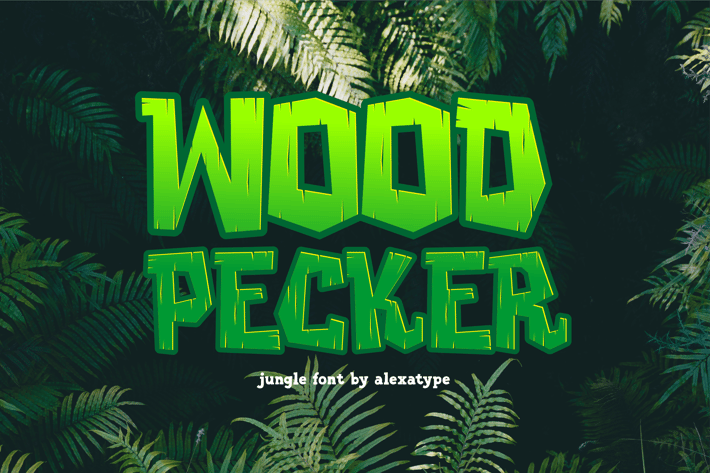
Woodpecker - Unique Jungle Font
Woodpecker comes with chopped wood plank style.
perfect for any outdoor, wild life adventure, survivor mode games, jungle and park adventure poster, and many more.